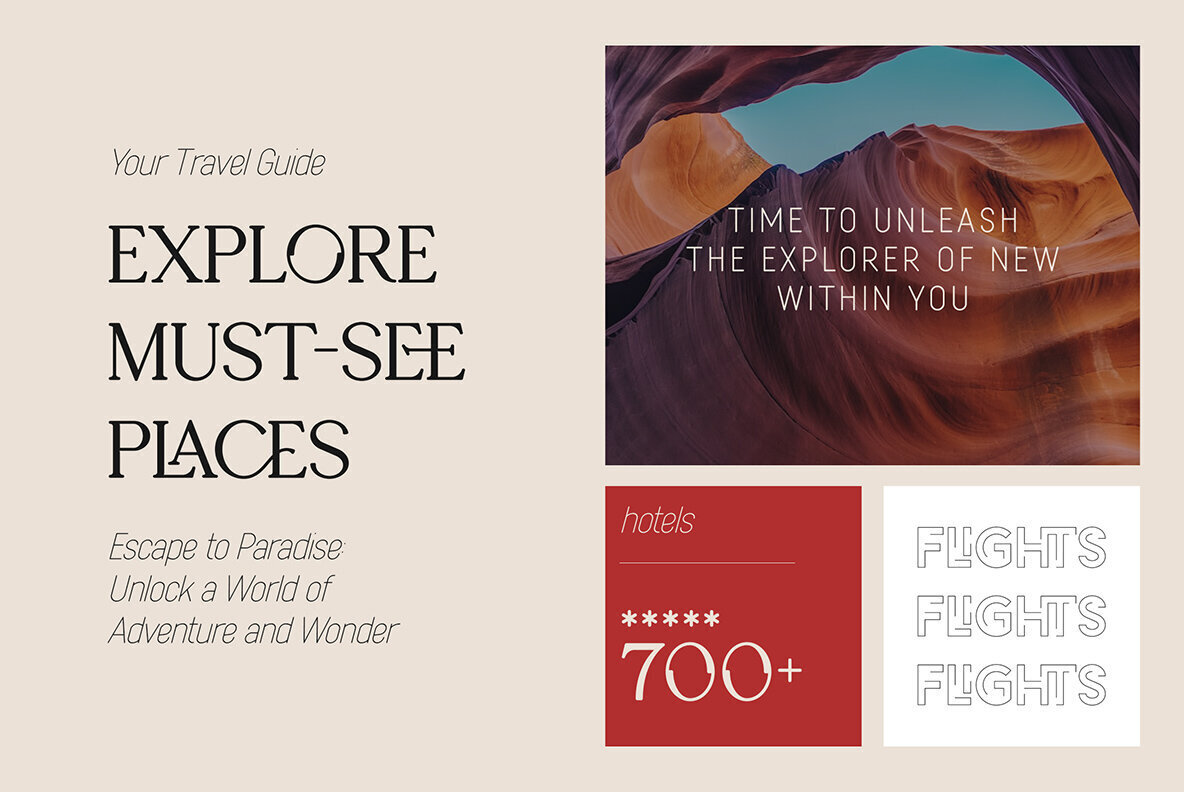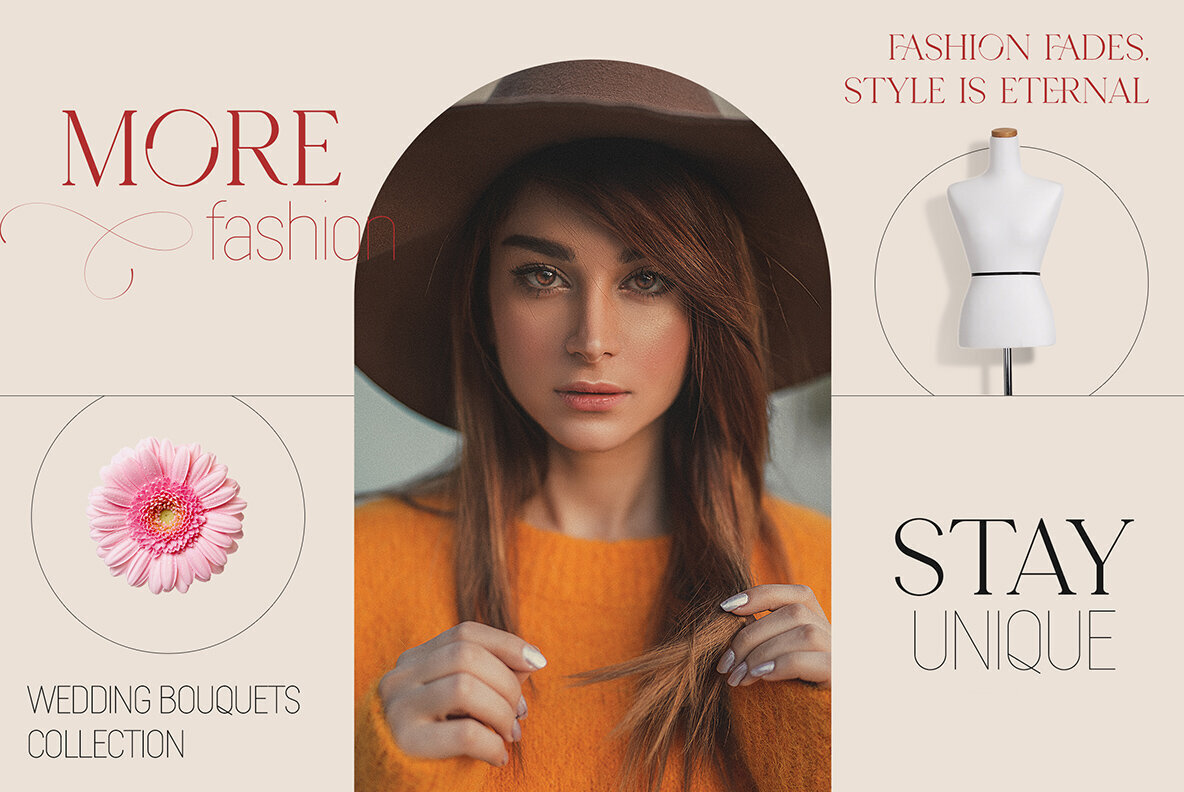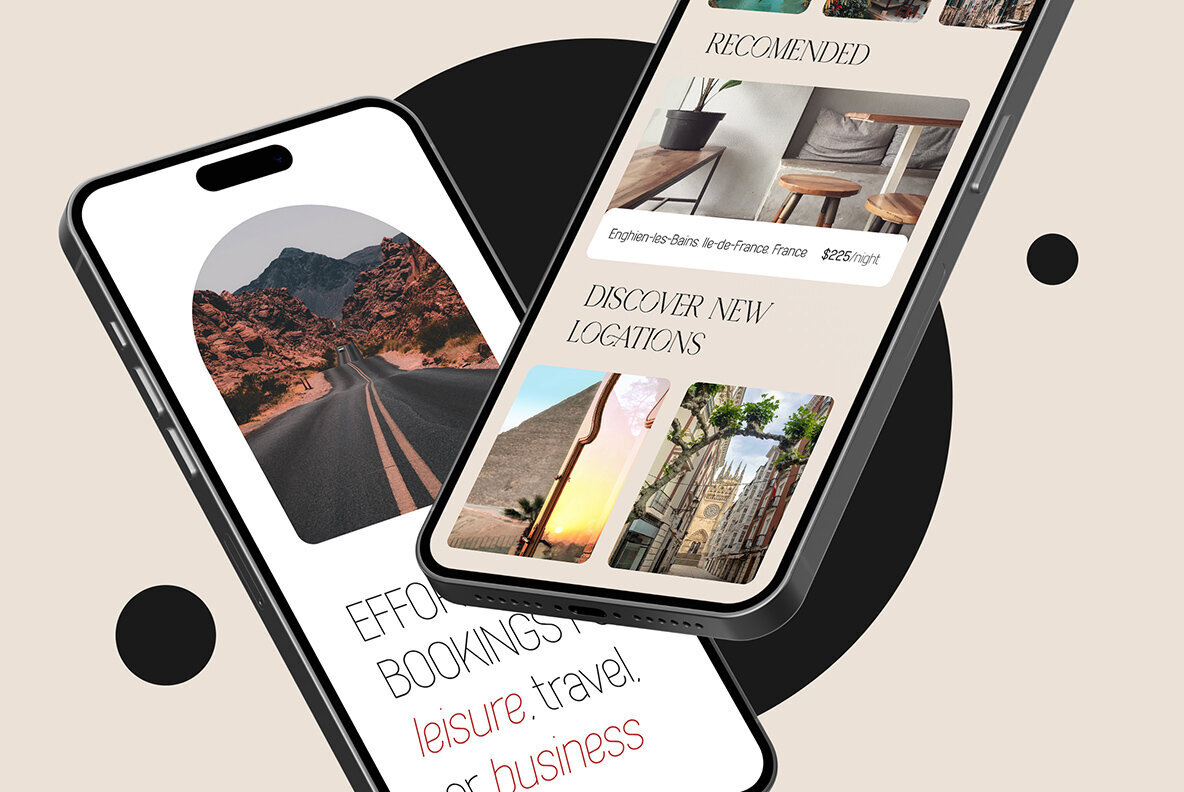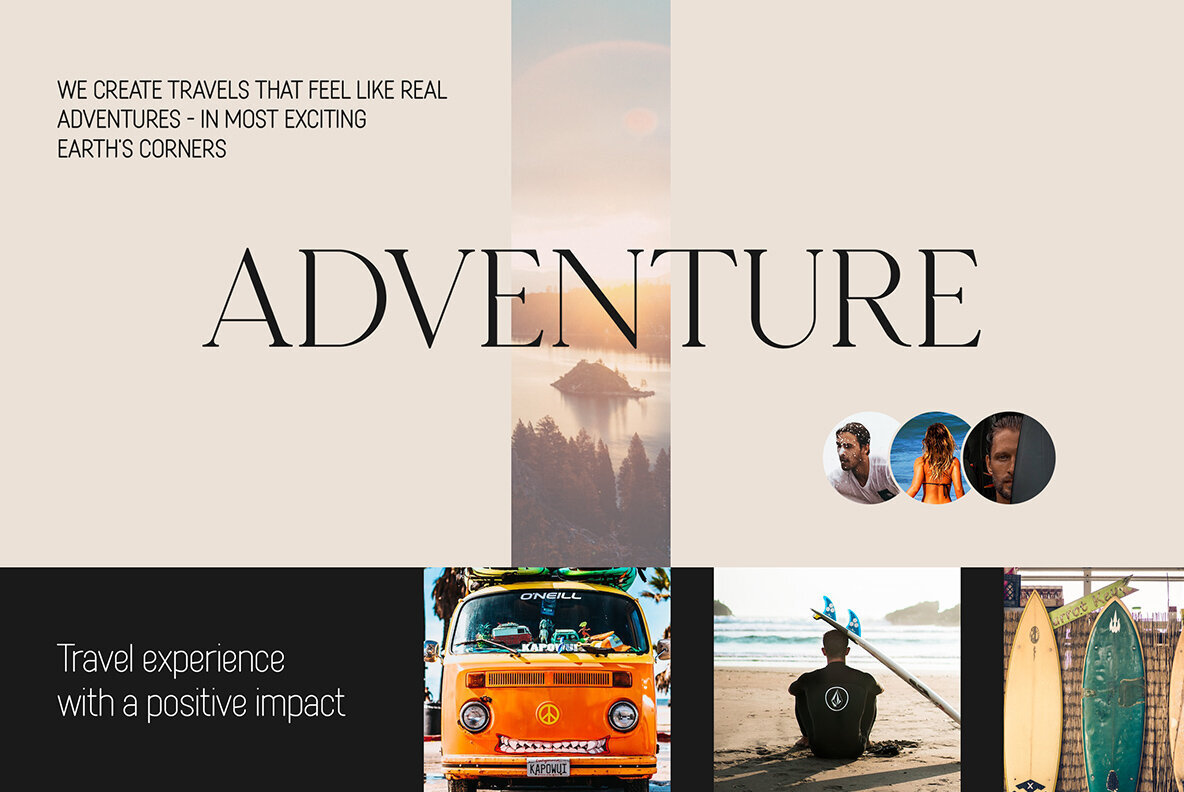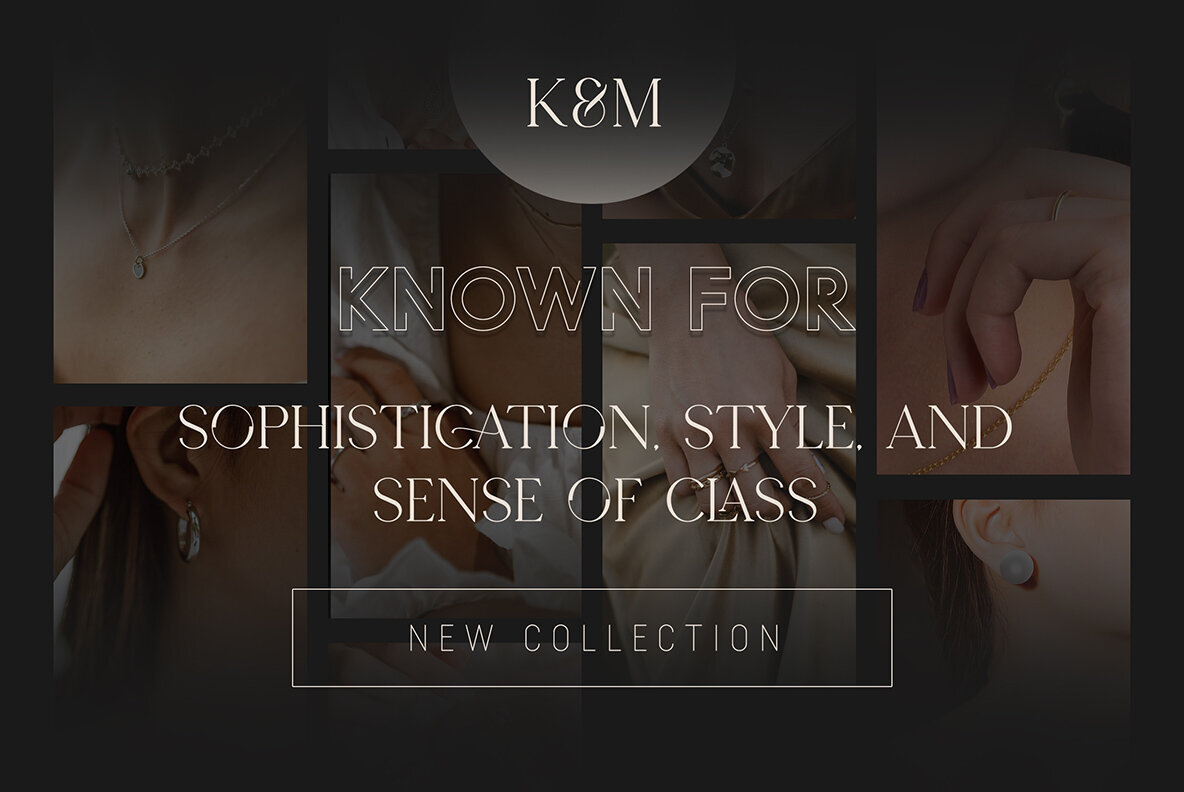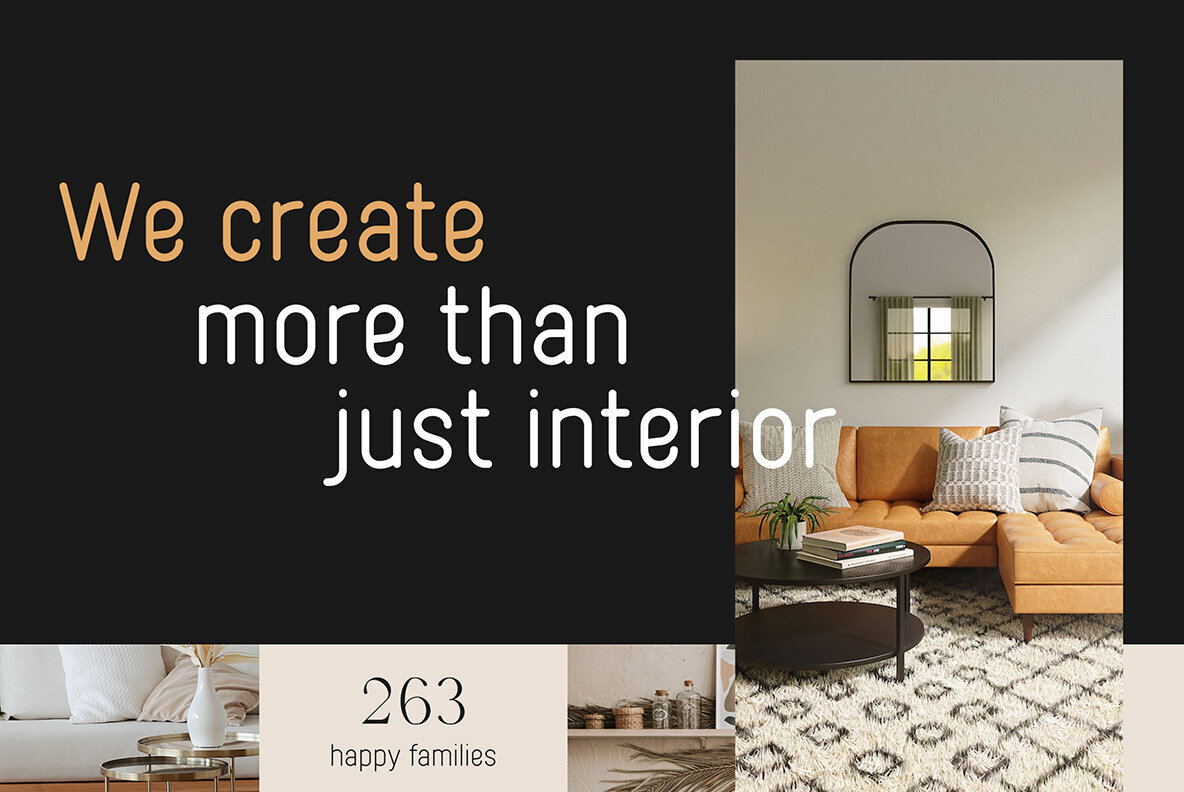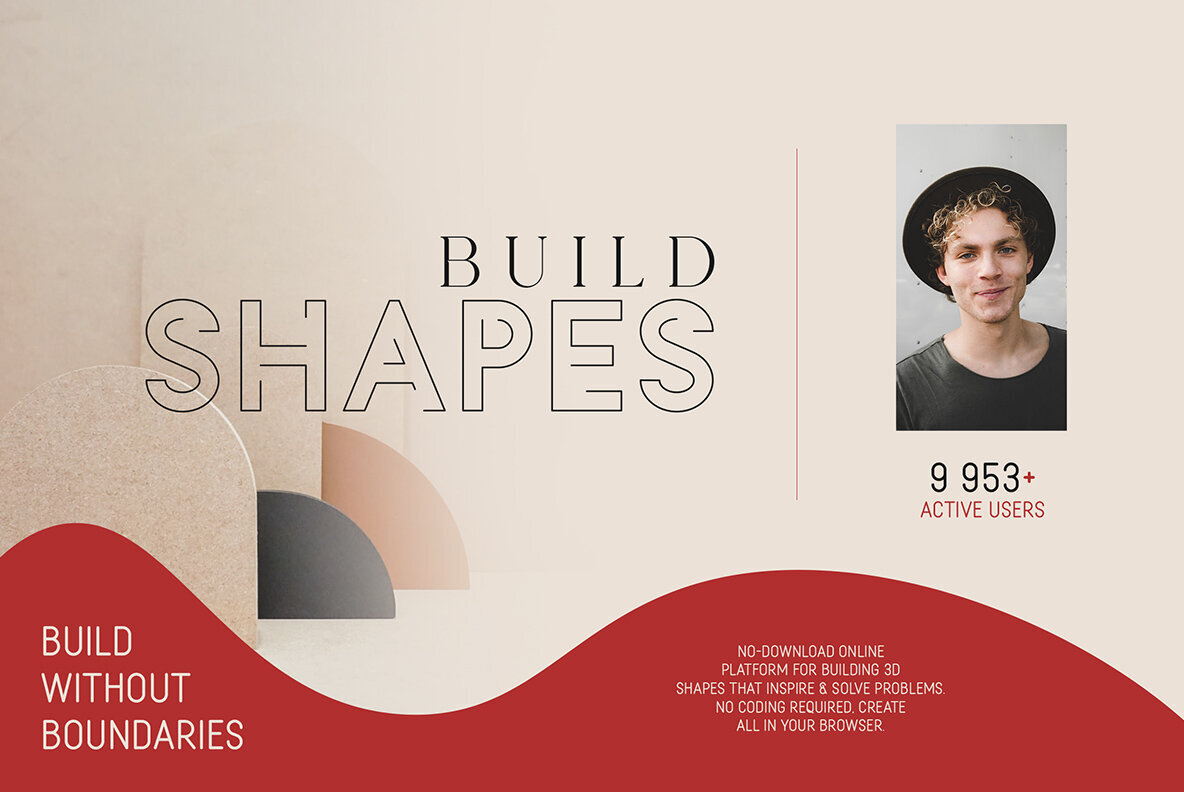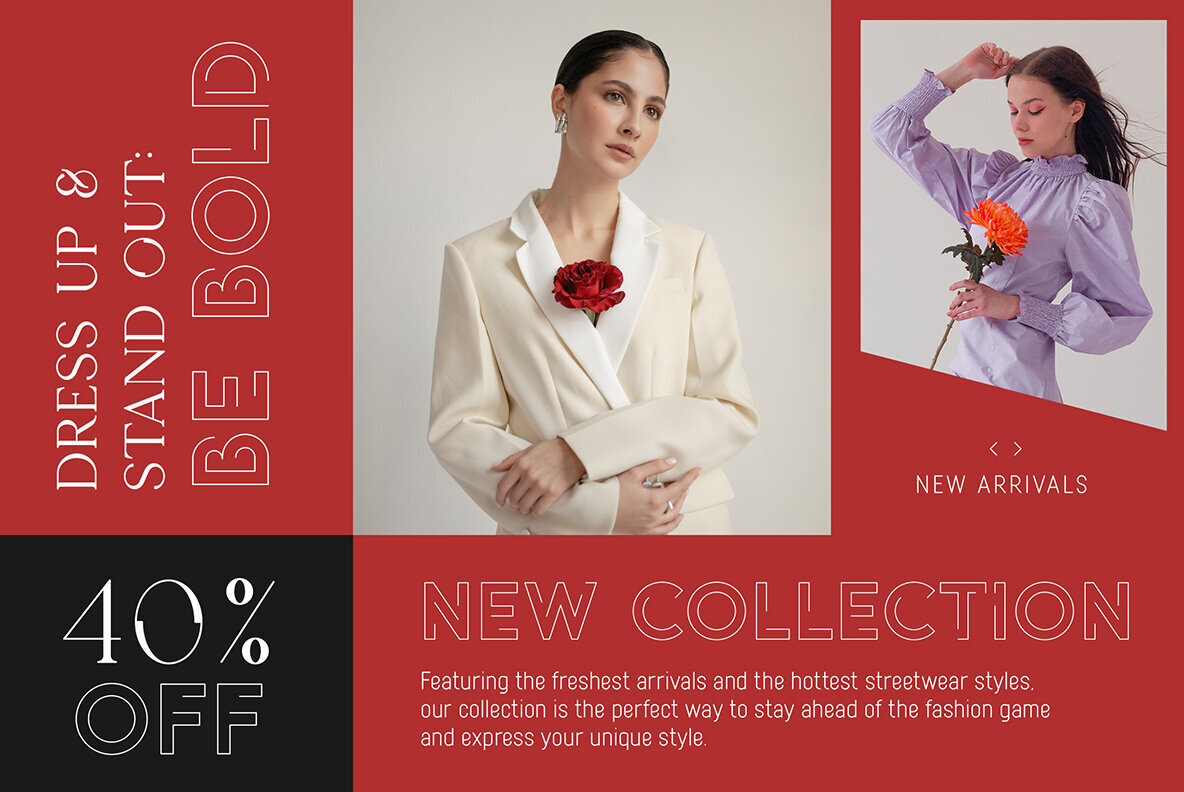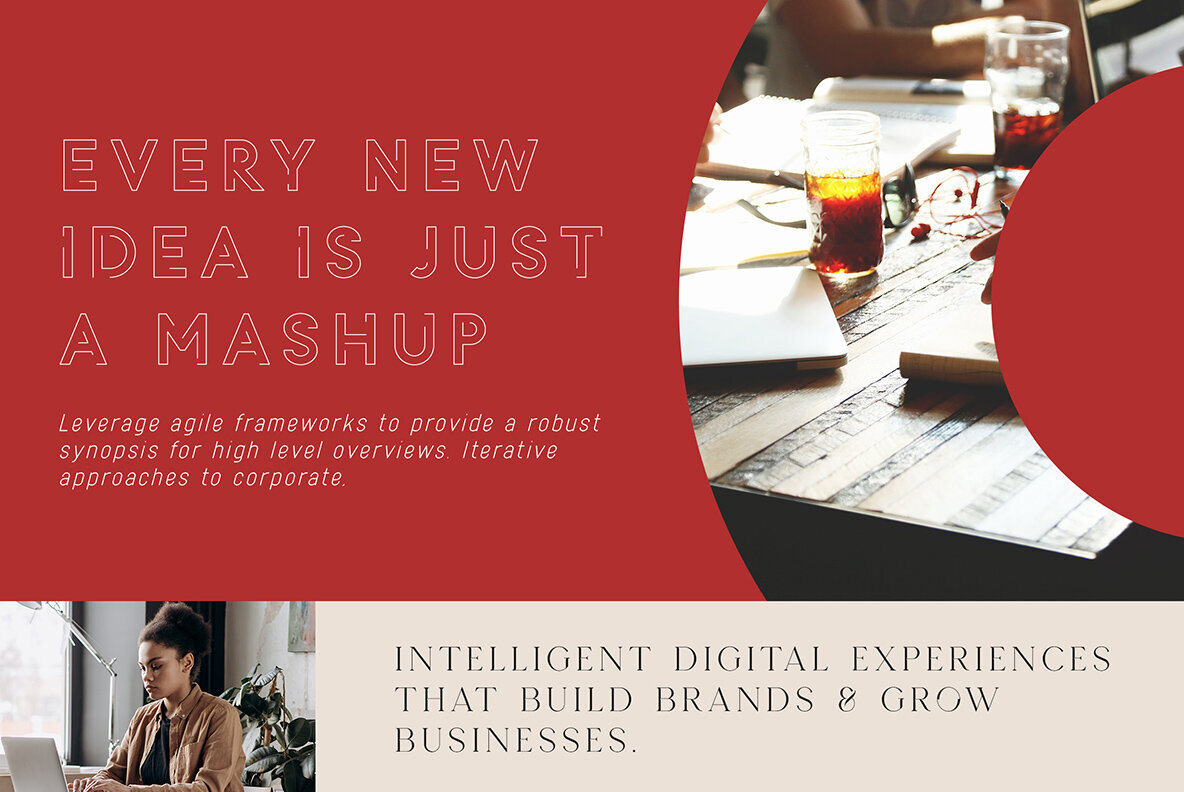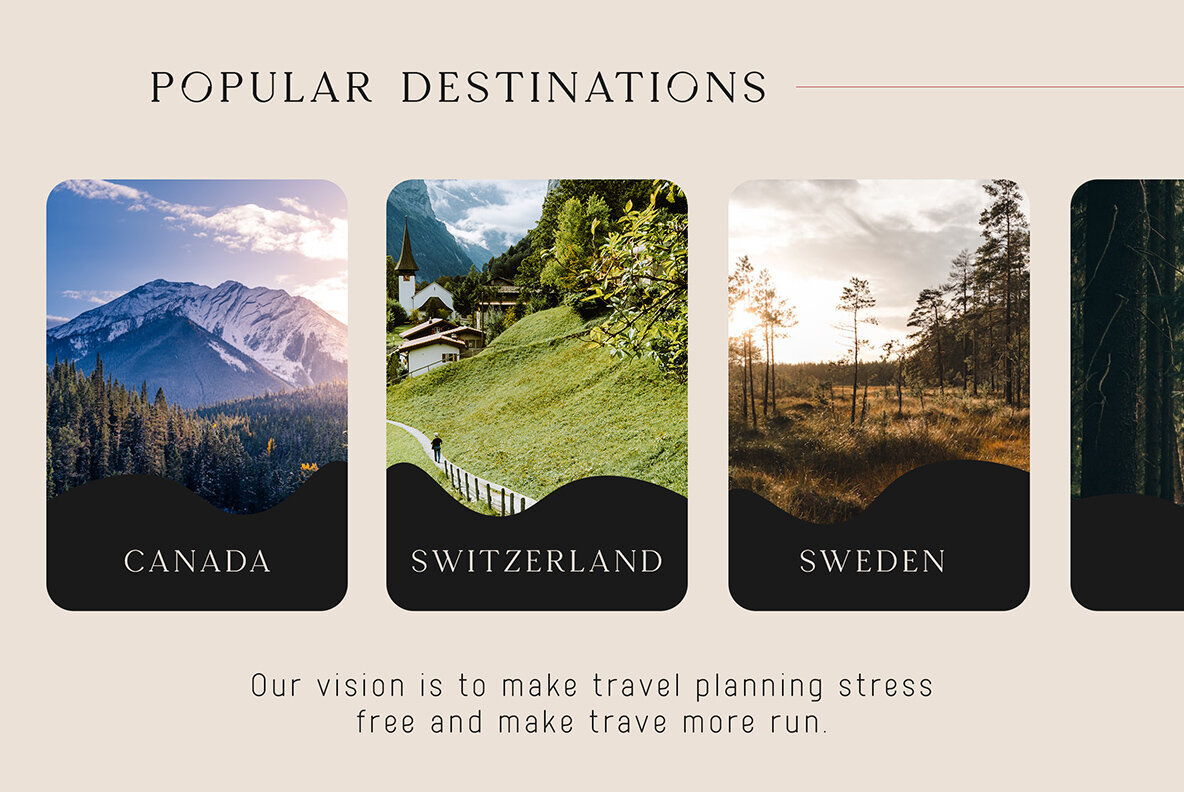
When Azora meets Seafont - font duo
The "When Azora Meets Seafont" font duo is a dynamic pairing that seamlessly blends elegance and versatility. This set includes two distinct typefaces: Azora and Seafont, offering a total of 41 unique fonts, each bringing its own character and purpose to your designs. Azora is highlighted as a display and sans serif typeface. Characterized by clean lines and a contemporary essence, Azora provides modern sophistication for a variety of design projects. Whether you're creating impactful headlines, stylish logos, or eye-catching posters, Azora's sleek design adds finesse to your work. Conversely, Seafont serves as the serif companion, adding classic charm and timeless elegance to your typography. Its graceful serifs and curves pay homage to traditional typefaces, making it perfect for projects requiring a touch of sophistication. Seafont also features an impressive collection of 26 swashes in a separate font, allowing effortless incorporation of decorative elements into your designs. The versatility of "When Azora Meets Seafont" extends beyond style, as it also boasts remarkable functionality. Supporting an astounding 87 languages, these typefaces enable your message to be beautifully conveyed to a global audience. This font duo is ideal for a wide range of projects, including invitations, branding materials, and editorial layouts. It balances modern and timeless aesthetics artfully, making it a reliable creative ally to enhance any design with its variety and universal appeal. Note: Mockups and backgrounds used are not included.When Azora Meets Seafont: A Versatile Font Duo
Distinct Typefaces
Extensive Functionality
Perfect for Diverse Projects